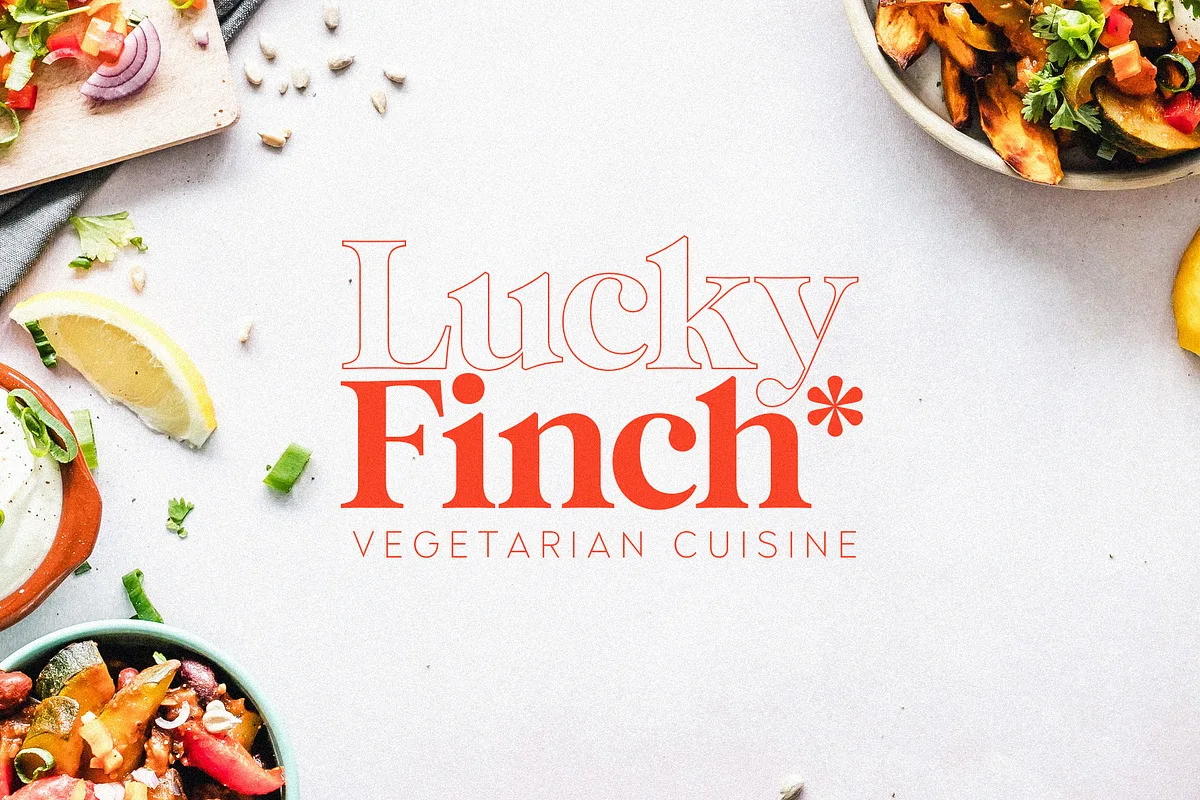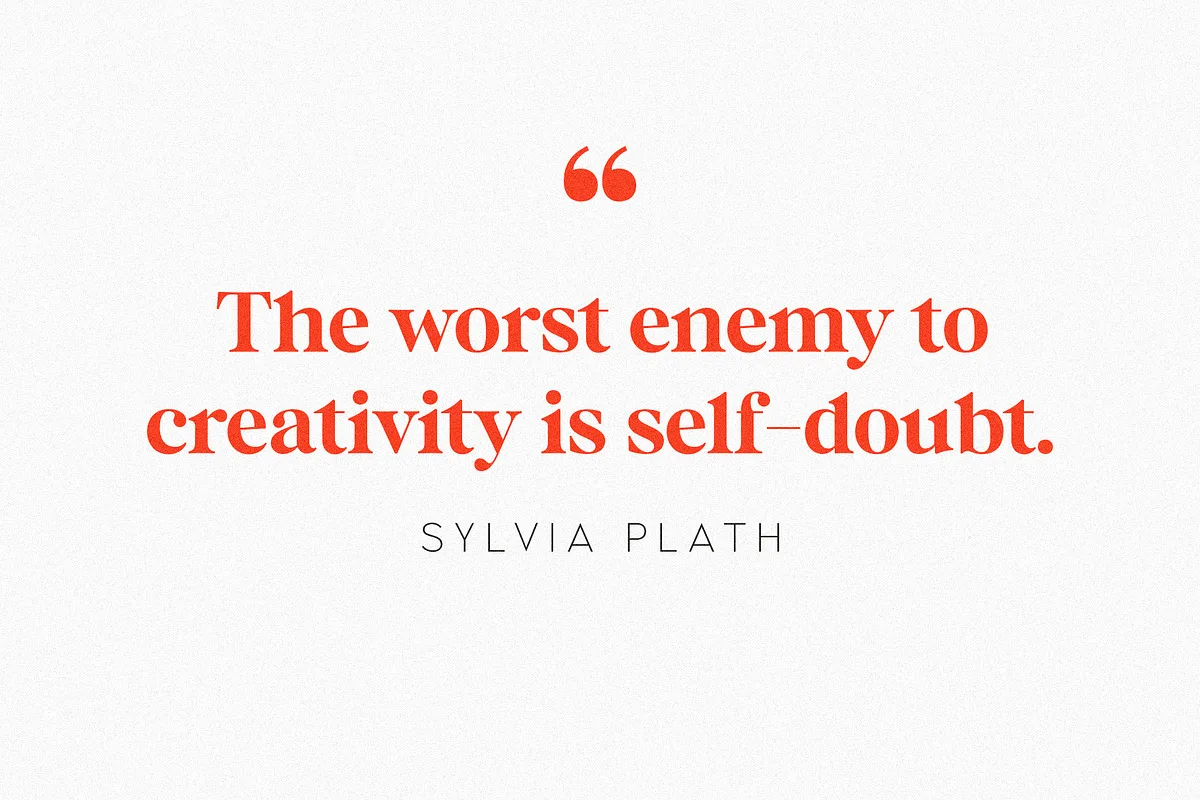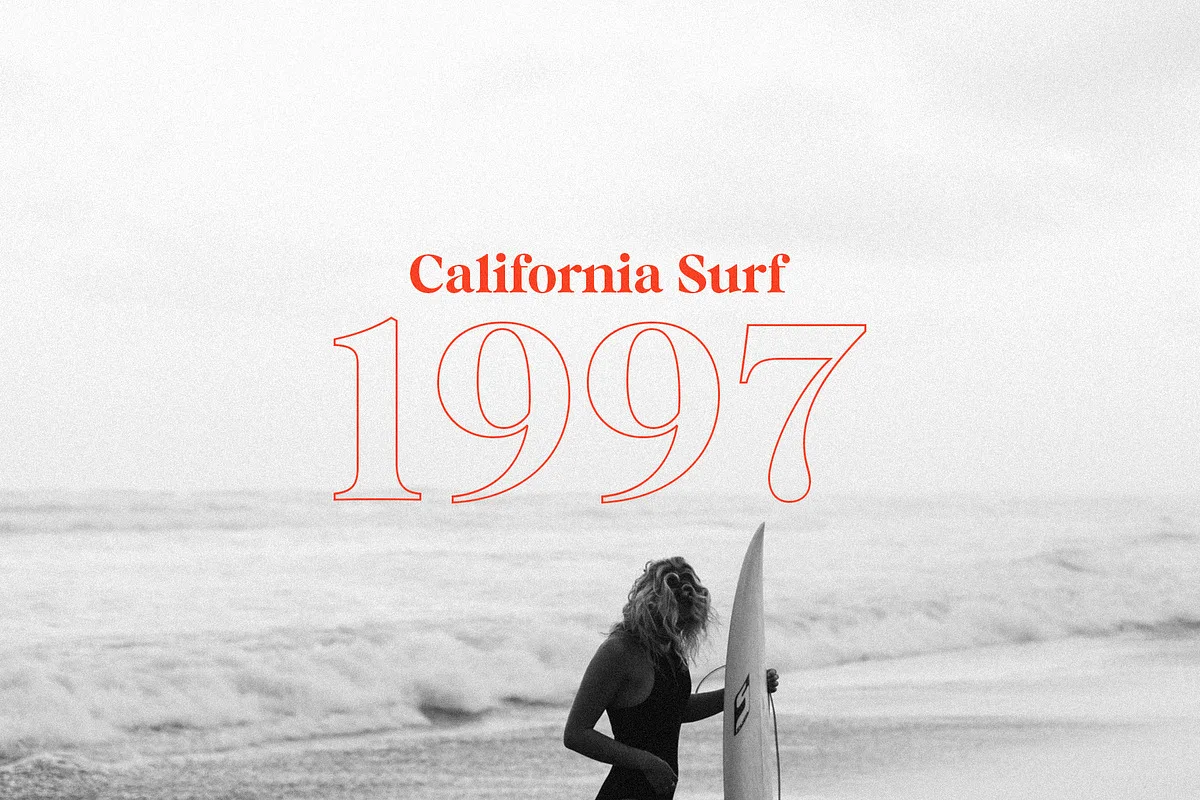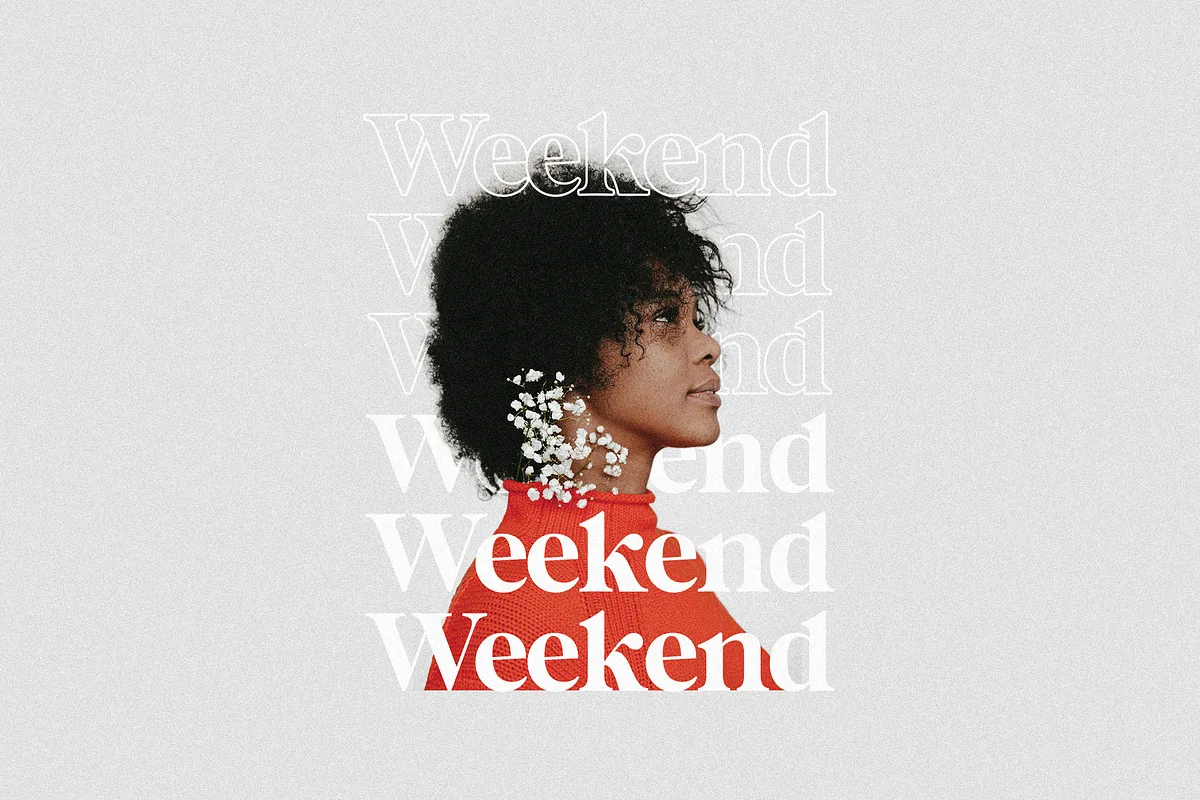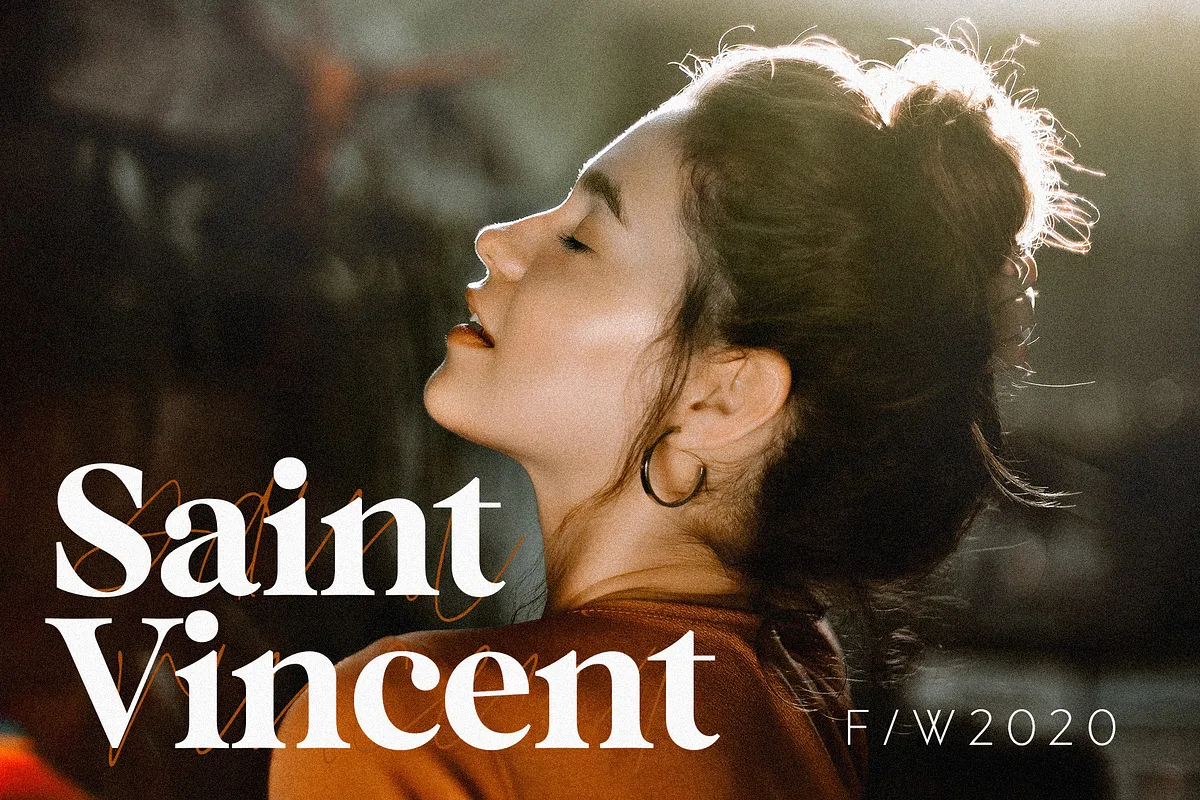
Bastia is a brand new serif font with a bonus sans for perfect pairing! It is a classy, bold upper and lowercase typeface that looks incredible in both large and small settings.
Best used as a display for headings and logos, Bastia’s clean lines and smooth curves give any project an extra touch of class.
- Uppercase & lowercase
- Numbers & punctuation
- Foreign language support
- Bold
- Bold Outline